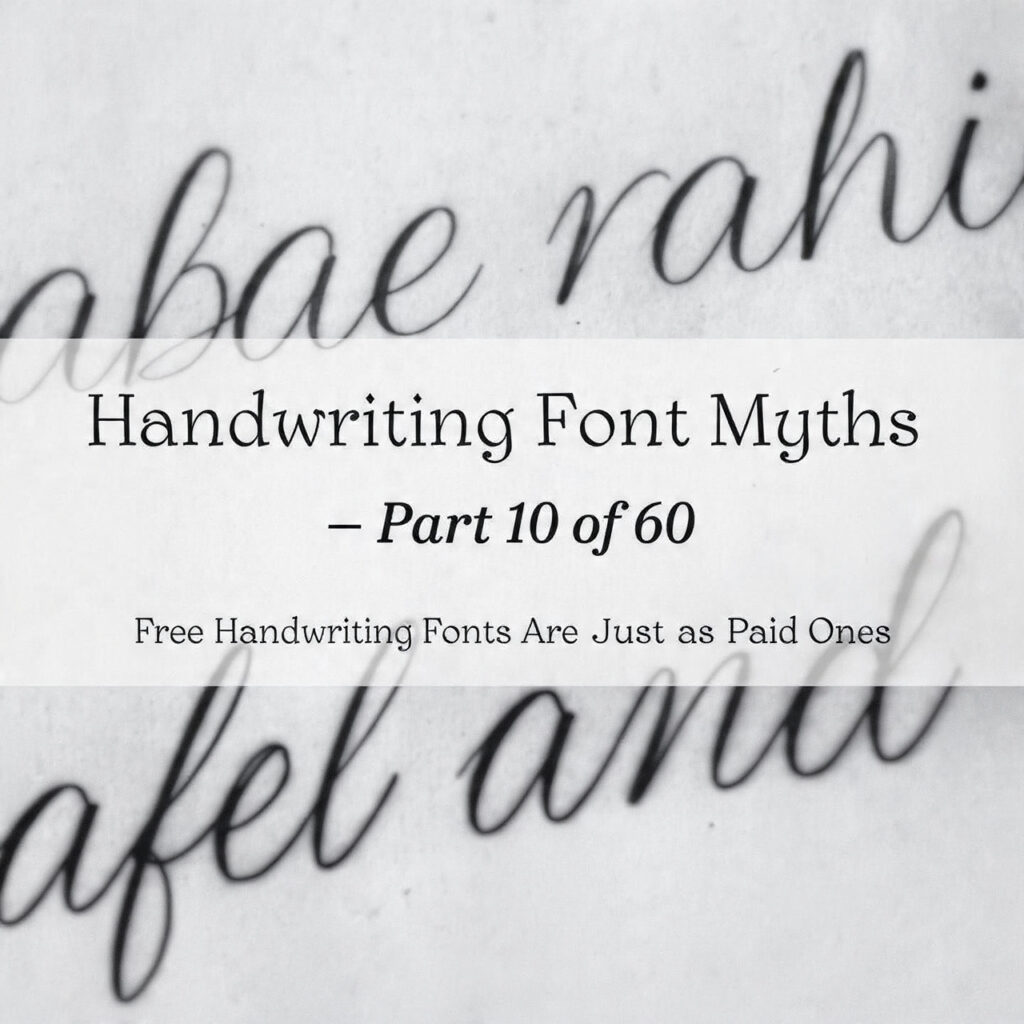
The specimen looks the same. What’s underneath it often doesn’t.
The Myth
The argument for free fonts has never been stronger from a pure availability standpoint. Google Fonts offers hundreds of typefaces at no cost with commercial licensing included. Independent designers release fonts on personal sites and through platforms like Font Squirrel with open licenses. The sheer volume of free handwriting fonts available in any given week is staggering β and some of them are genuinely good.
From this reality, a broader conclusion gets drawn: free handwriting fonts are essentially equivalent to paid ones. The visual difference, if any, is marginal. The only thing you’re paying for with a premium font is the brand of the foundry or the reputation of the designer. A savvy user who knows where to look can get the same results for nothing.
This conclusion skips past a substantial body of work that distinguishes professionally finished fonts from unfinished ones β work that is invisible in a specimen but becomes very visible in production.
What a Font Specimen Doesn’t Show
A font specimen β the preview image in a marketplace, the text sample on a foundry’s page, the preview rendered in a font management app β shows letterforms at a selected size, usually set in favorable word combinations chosen by the designer. Specimens are marketing materials before they are technical documents. They show the font at its best.
What a specimen almost never reveals:
Kerning completeness. Whether the font has been kerned thoroughly across the full range of letter combinations a real-world text setting will produce β or whether it has default metrics only, or partial kerning that covers the obvious pairs but leaves hundreds of awkward combinations unaddressed.
Glyph coverage. Whether the font includes the full character set a project will require: accented characters for European languages, proper quotation marks and apostrophes (not default inch and foot marks), ellipses, em dashes, currency symbols, fractions, and the range of punctuation marks that appear constantly in real text but rarely in specimens.
OpenType feature quality. Whether the contextual alternates, ligatures, and stylistic sets actually work as intended β firing in the right contexts, substituting correctly, not producing unexpected behavior in different software environments.
Hinting quality. Whether the font has been hinted for screen rendering β the information embedded in the font that tells rendering engines how to align strokes to pixel grids at small sizes. Poor or absent hinting produces fuzzy, irregular-looking text on screen at body sizes, even if the letterforms look clean at large display sizes.
License scope. Whether the license actually permits the use the buyer has in mind. Personal use, commercial use, web use, app embedding, broadcast use β these are different license categories, and a font that’s “free” for one may not be free for another.
None of this appears in the specimen. All of it matters in production.
The Kerning Gap
Kerning is where the quality difference between free and paid handwriting fonts is most consistently visible in practice, and most directly connected to design quality.
A professional handwriting font released by an experienced type designer will have been kerned exhaustively β typically going through multiple rounds of testing in real text settings, with the designer examining large bodies of text for awkward pairs and making adjustments across hundreds or thousands of letter combinations. This process takes a significant amount of time. On a complex handwriting font with an extended character set, thorough kerning work alone might represent several weeks of full-time effort.
Free fonts are often released at a stage of completion that doesn’t include this work. The letterforms may be beautiful. The basic metrics may be reasonable. But the detailed kerning β the work that separates a font that looks good in a word or a headline from one that looks good in a paragraph β is absent or minimal.
The result is a font that looks fine in the specimen and starts showing problems in actual use: specific letter combinations that gap too wide, pairs that crowd uncomfortably, collisions between strokes that the designer didn’t anticipate because the pairs weren’t tested. In a handwriting font, where the irregular outlines create more potential collision and gap scenarios than in a conventional typeface, this problem is amplified.
The Glyph Coverage Problem
A free handwriting font that covers the basic Latin alphabet β A through Z, a through z, numerals, and basic punctuation β will work fine for English-language design work in simple settings. It will fail immediately in a range of situations that professional work routinely requires.
Proper typographic apostrophes and quotation marks. Em dashes and en dashes. The full range of accented characters for French, German, Spanish, Portuguese, Polish, and the dozens of other Latin-script languages that appear in international commercial work. Ligatures for common problematic combinations. Fractions. Currency symbols beyond the dollar sign. Small capitals, if relevant to the design.
Open-source fonts released by serious designers under permissive licenses represent real value and real craft. The free/paid distinction doesn’t map cleanly onto the quality distinction β there are genuinely excellent free fonts and genuinely poor paid ones.
The issue is not that free equals bad. It’s that the specimen doesn’t reveal the difference, and the assumption that free equals equivalent-to-paid leads designers to skip the evaluation step where the actual quality of kerning, glyph coverage, and licensing would be checked.